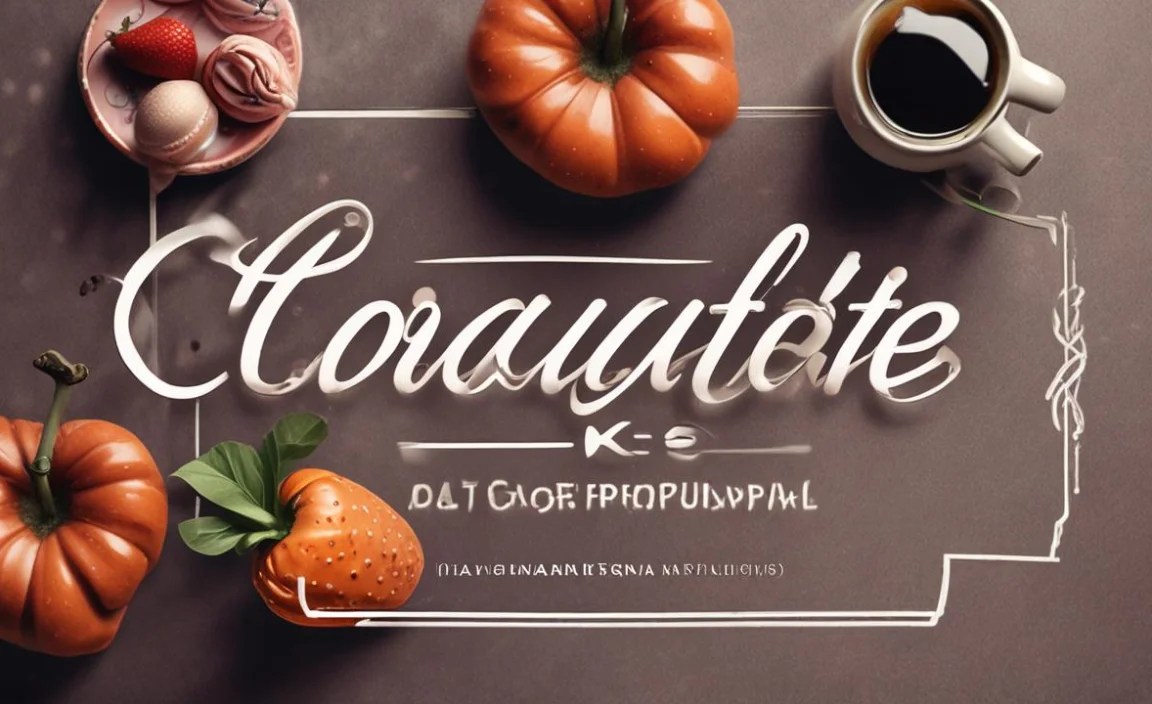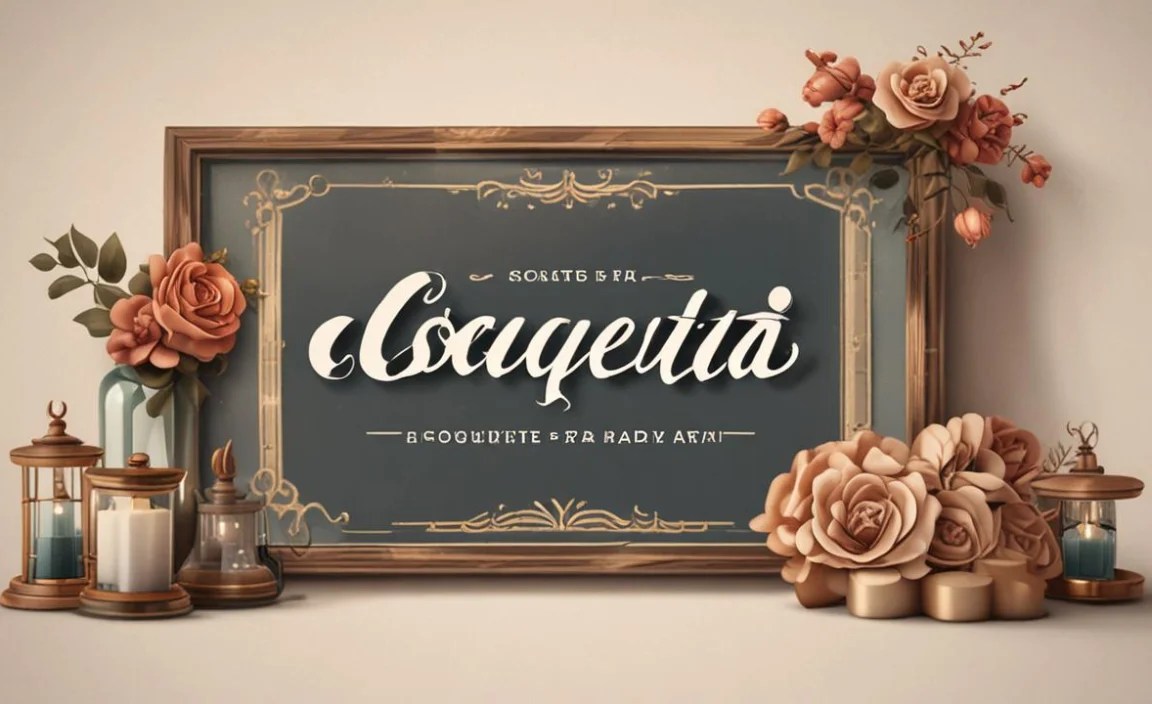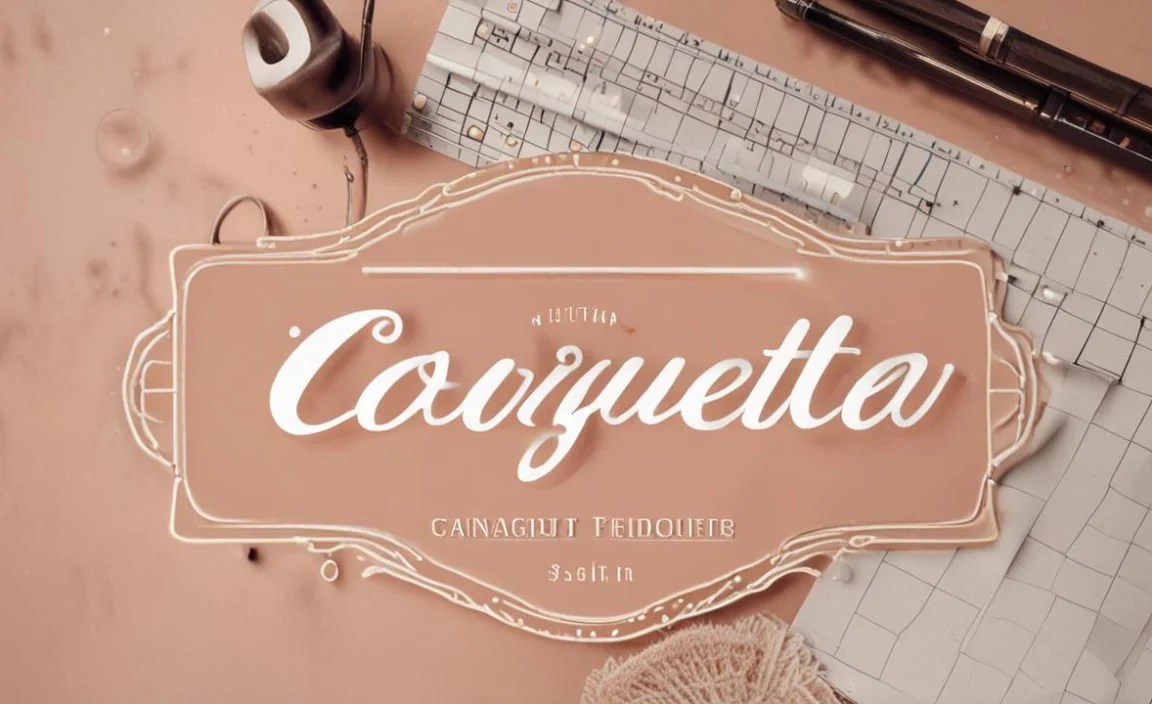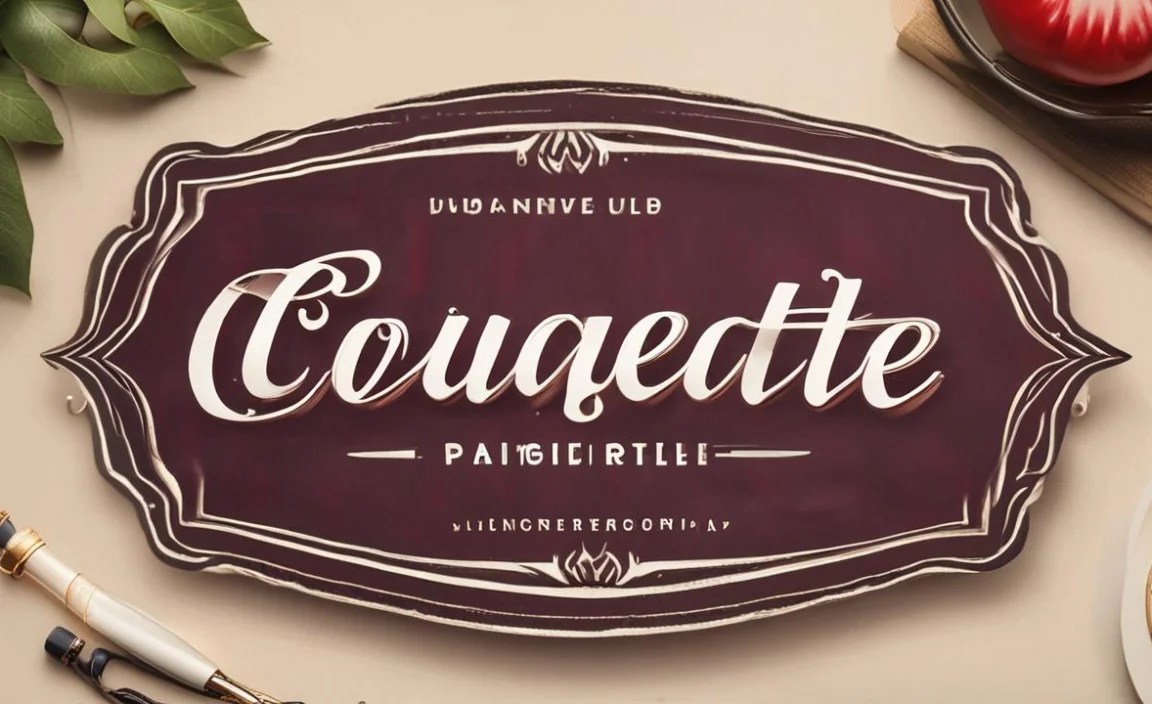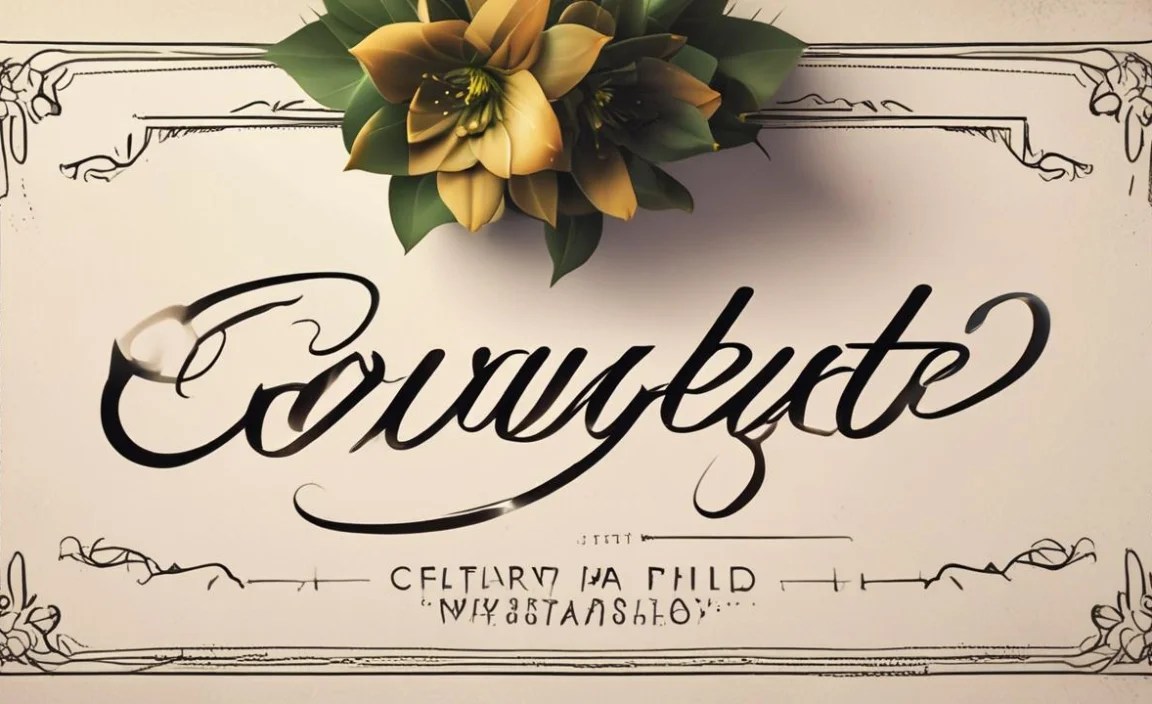
Coquette is a playful and elegant script font designed by Mark Simonson in 2001. With its retro flair and vintage charm, it has become a favorite among graphic designers for creating stylish logos, posters, and product packaging.
Featuring three distinct weights—Coquette Light, Regular, and Bold—this font family offers flexibility while maintaining its unique, fluid character. Whether used for fashion, celebrations, or branding, Coquette brings a touch of elegance and nostalgia to any design.
Coquette Font Information
- Name: Coquette
- Style: Script, Retro, Elegant
- Designer: Mark Simonson
- Publish Date: 2001
- Font Family Name: Coquette
- Coquette Thin
- Coquette Light
- Coquette Regular
- Coquette Bold
- Coquette Extrabold
- Coquette Black
Where Coquette Is In Use
- Logos: Perfect for branding and logos that need a stylish, retro touch.
- Posters: The elegant, playful design is ideal for movie and event posters.
- Product Packaging: Adds a touch of sophistication to product labels and packaging designs.
- Celebration: Great for invitations and celebrations, providing an air of elegance.
- Fashion: Frequently used in fashion marketing to communicate style and elegance.
- Pinterest Graphics: The Coquette font shines in social media posts and online content.
- Store Signage: Adds charm and readability to storefronts and signage.
- Printing: Coquette is commonly used in printed materials such as brochures, catalogs, and business cards.
- Coquette + Proxima Nova: Proxima Nova’s clean, sans-serif forms contrast beautifully with the elegant curves of Coquette, creating a balanced pairing.
- Coquette + Helvetica: A modern pairing, perfect for contemporary designs needing a touch of retro elegance.
Coquette is a beautifully designed retro script font that combines elegance with a touch of playfulness. Created by Mark Simonson, it is perfect for various design projects, from logos and product packaging to posters and social media graphics.
With its versatile family of weights—Coquette Light, Regular, and Bold—it offers the flexibility needed for both personal and professional use. Whether you’re designing for fashion, celebrations, or branding, Coquette brings a stylish, vintage charm to your creative endeavors.
2.Can I Use Coquette In My Logo Design?
Yes! Coquette is perfect for logos and branding that require a vintage, elegant feel.
3.What Character Sets Does Coquette Support?
Coquette supports Latin, Cyrillic, Greek, and Chinese characters, making it versatile for international projects.
4.Can I Use Coquette For Product Packaging?
Absolutely! Its playful and elegant style works beautifully for product labels, packaging, and other print materials.